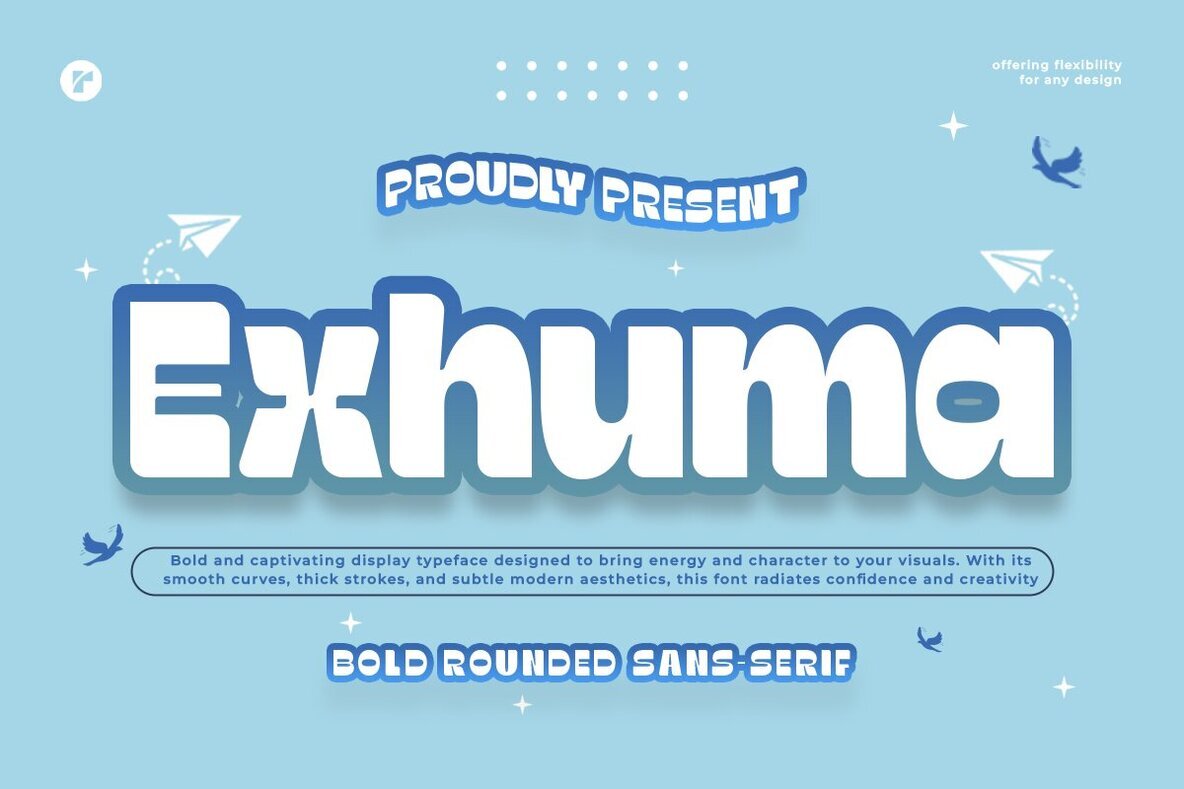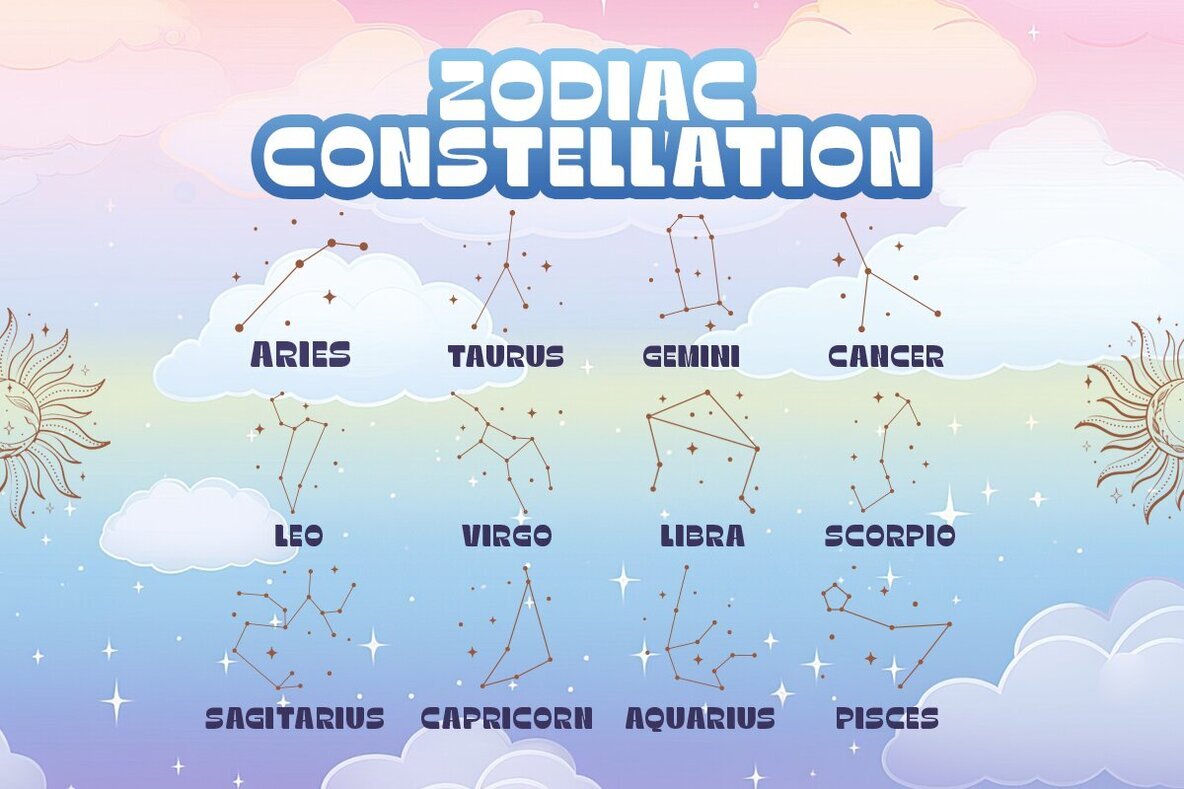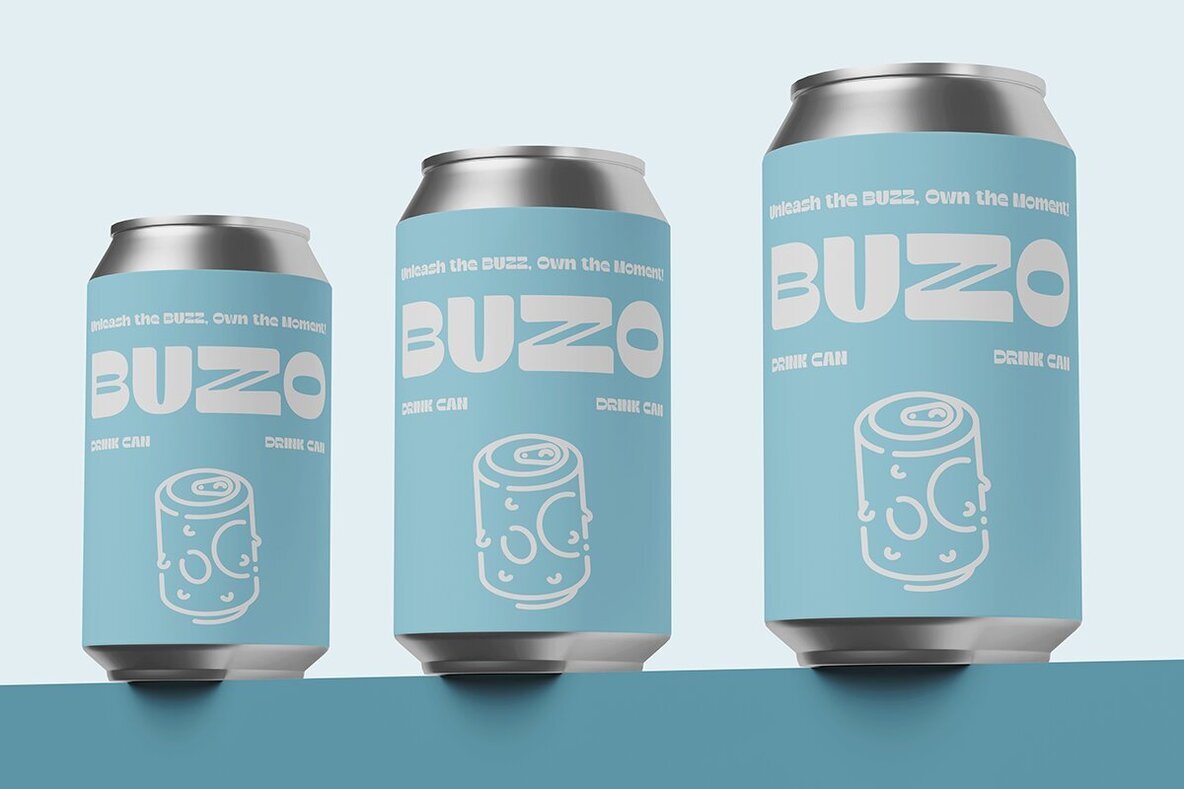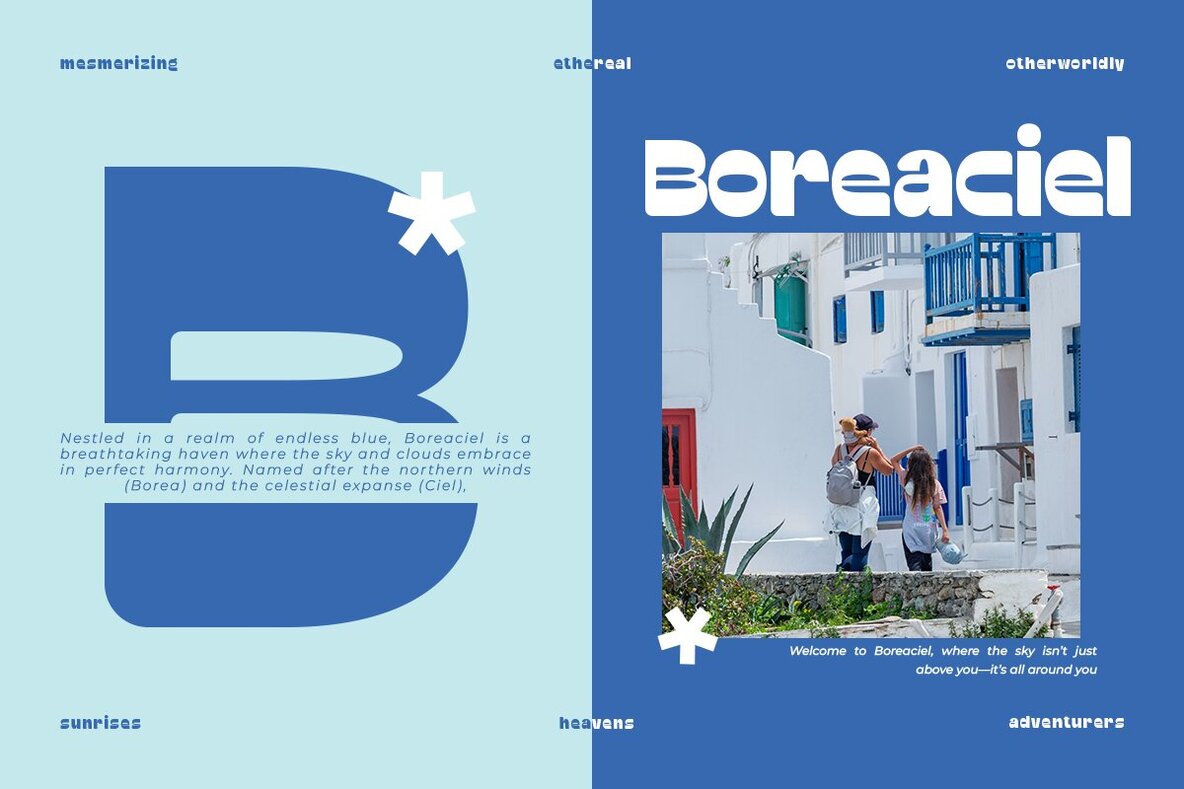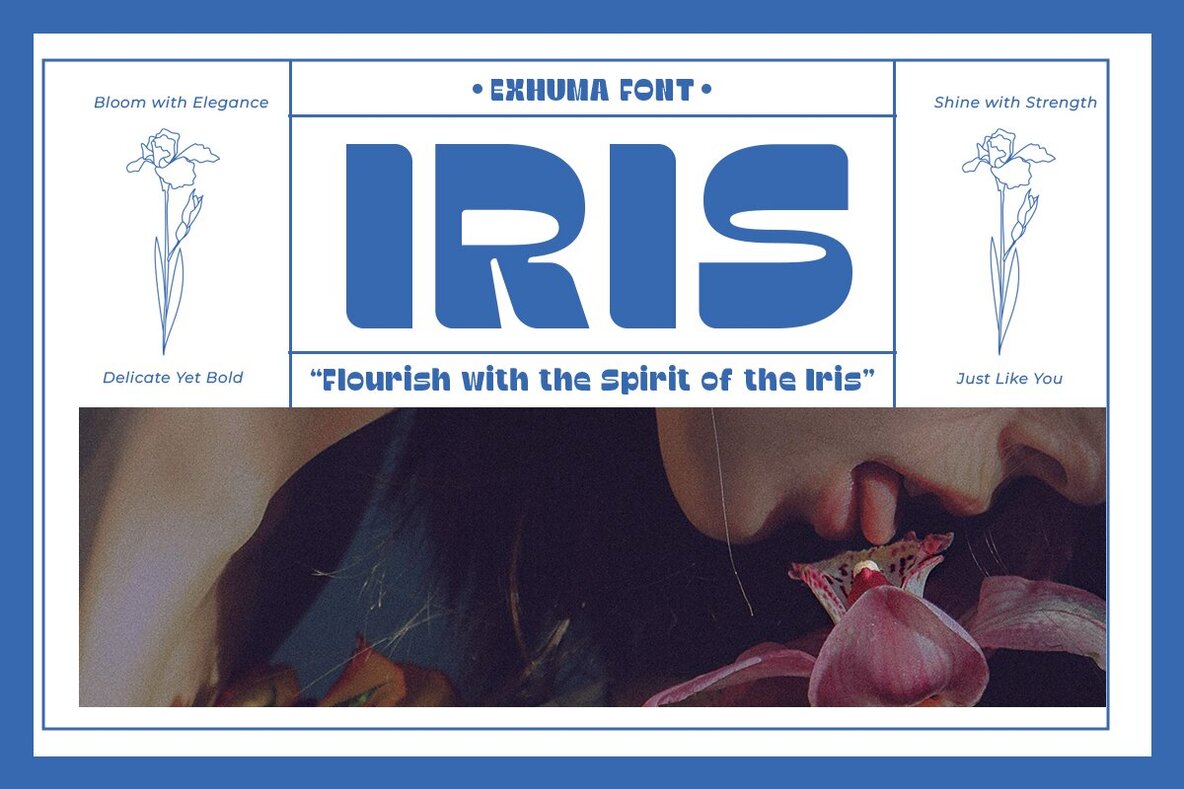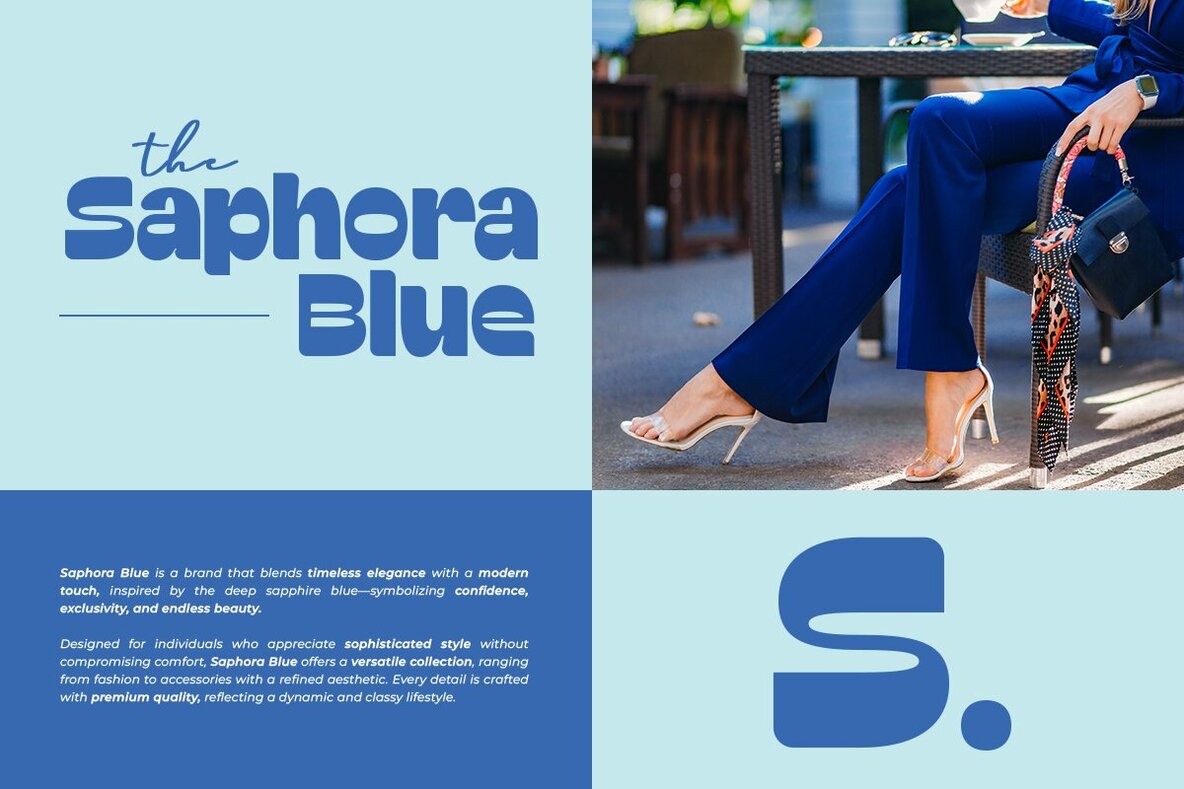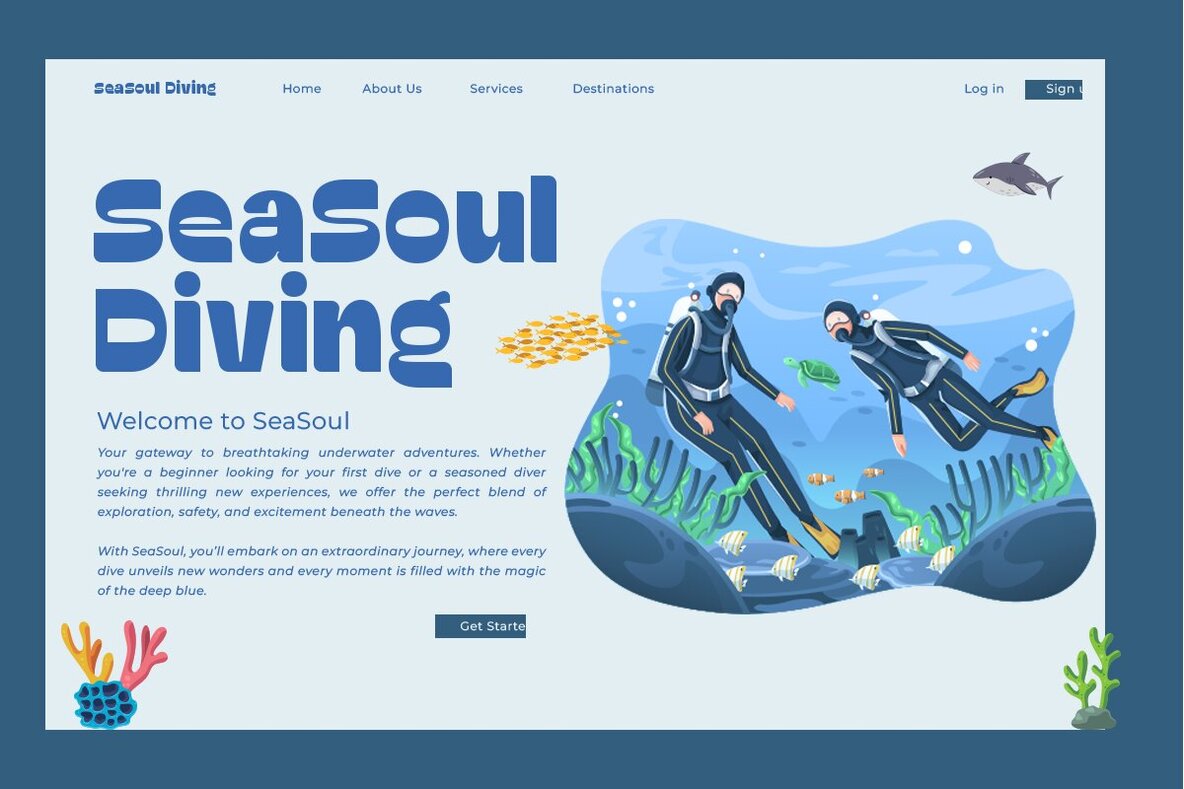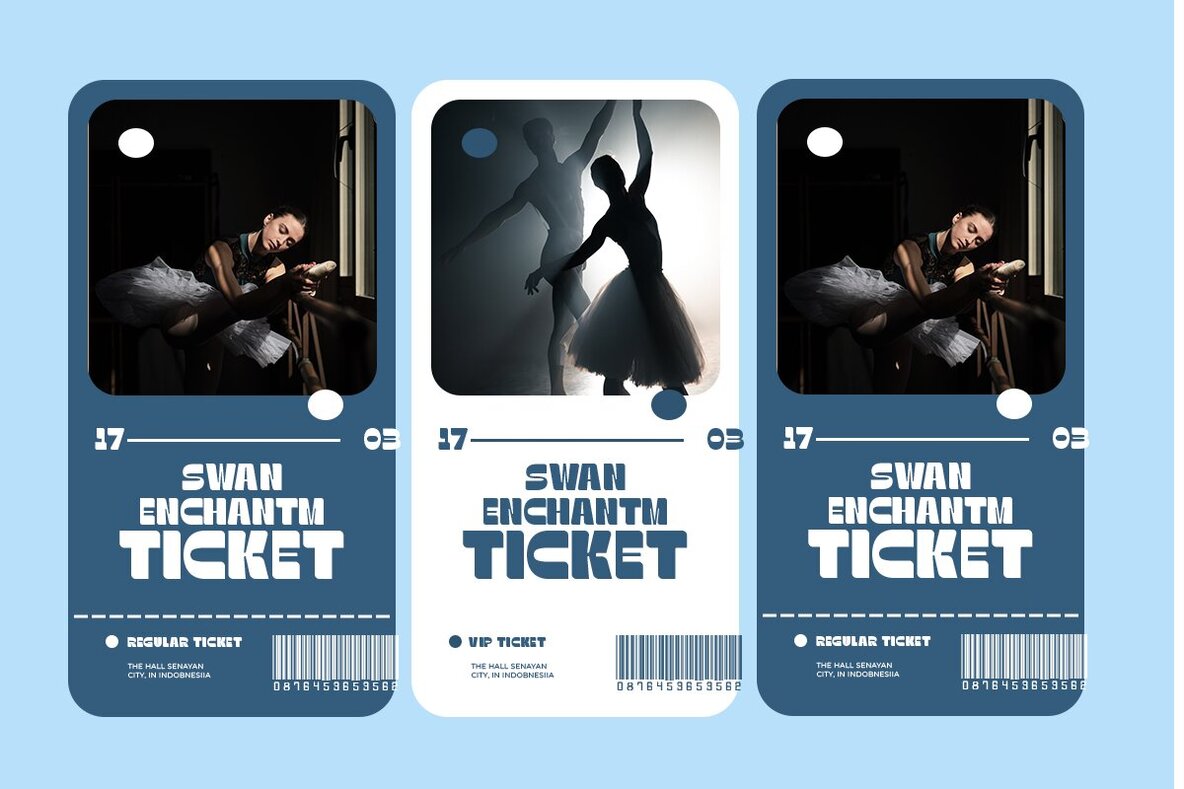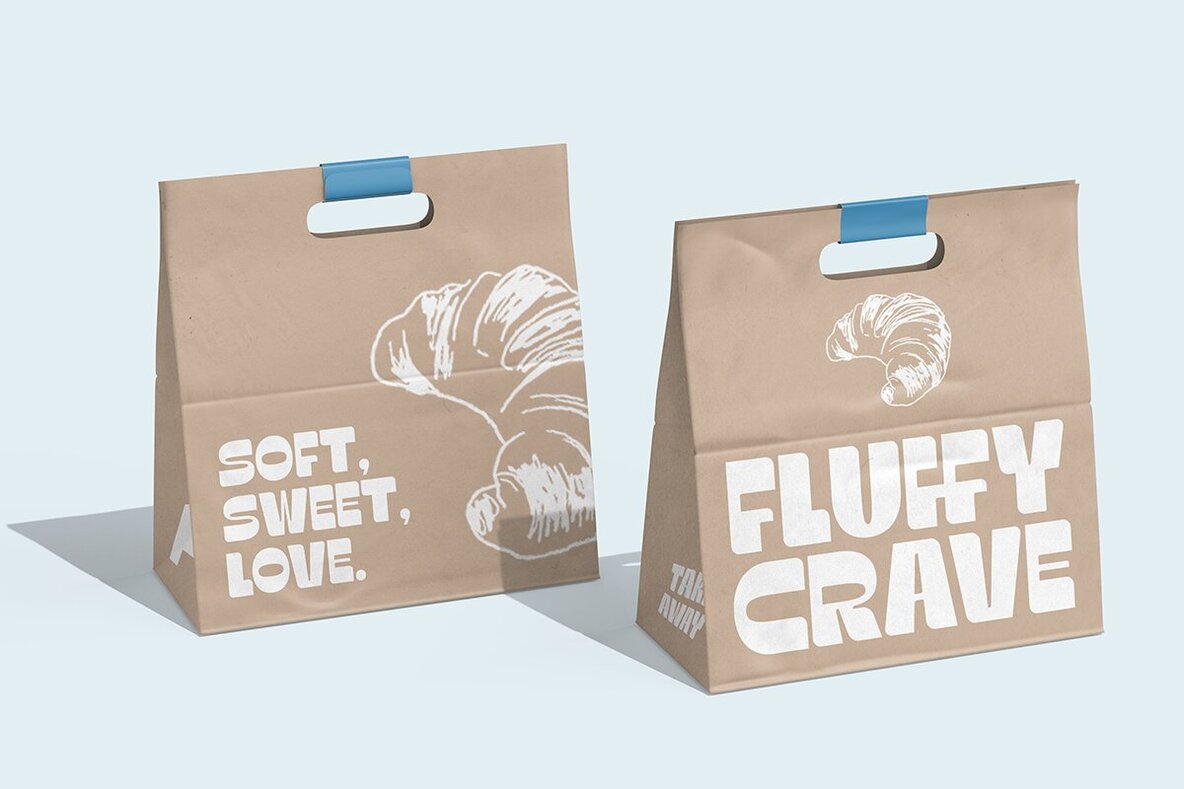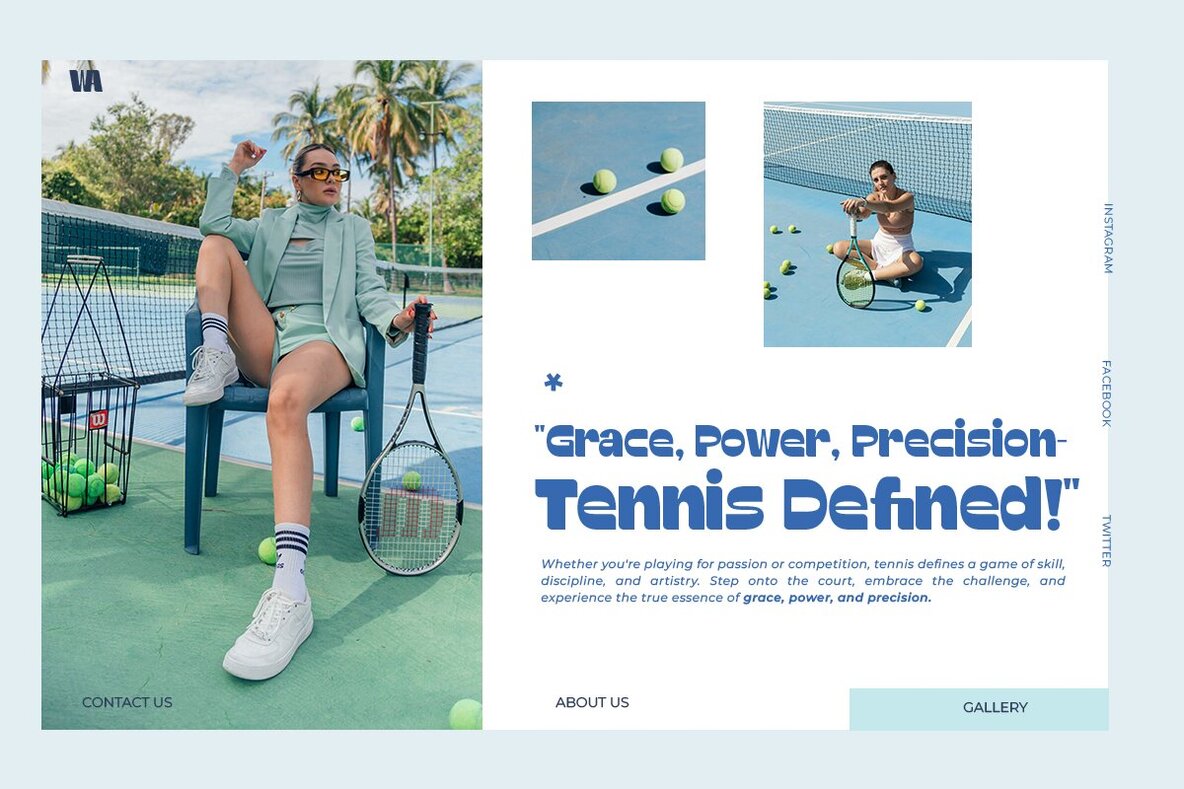
Exhuma Font
Exhuma Regular
Exhuma is a bold rounded sans-serif typeface, offering a seamless blend of modern aesthetics and playful energy. With its smooth curves and thick strokes, this font is designed for branding, logos, headlines, posters, and any project requiring a fresh and inviting look. Exhuma's soft yet confident character makes it adaptable for digital and print designs alike. Perfect for graphic designers, crafters, and business owners, Exhuma radiates creativity and approachability. Whether crafting designs for kids' products, social media graphics, packaging, or merchandise, this font delivers a fun, modern, and professional feel to your visual content.Exhuma Font: A Bold Sans-Serif for Modern Designs